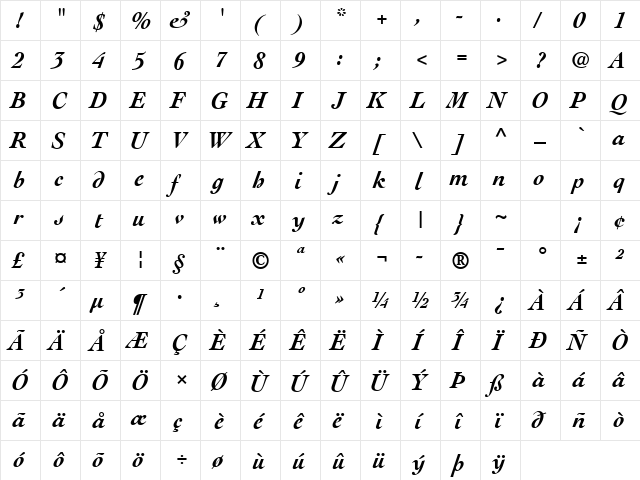
Cochin Bold Italic Font Preview
Design Context for Cochin Typeface
Cochin takes a measured approach to typography — its balanced proportions and neutral character make it a reliable workhorse for both digital and print work. Its italic angle brings a sense of urgency and motion to the letterforms. The heavy weight commands attention and anchors typographic hierarchies.
Pro Tip: Try Cochin for annotation and caption copy alongside an upright companion — the contrast in angle creates a dynamic but ordered typographic system.